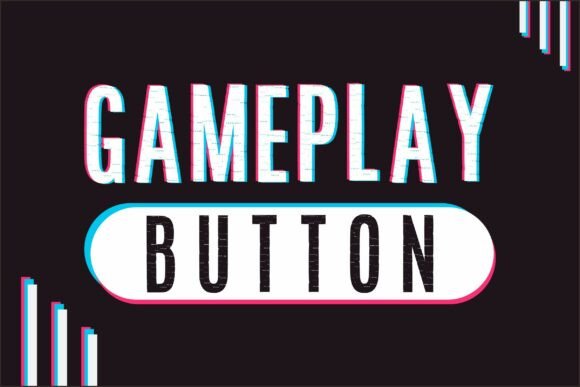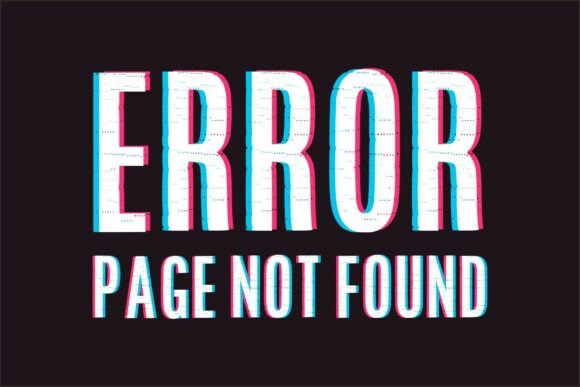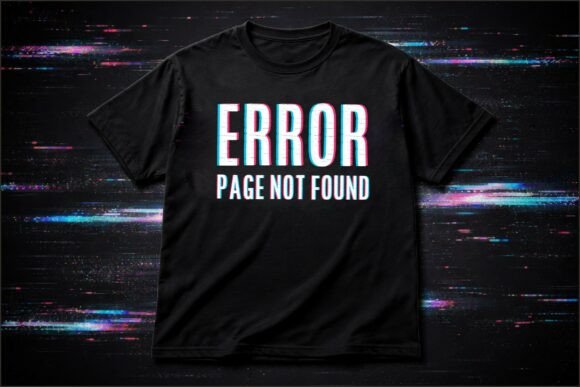
Introduction to Cyberpunk Effect Font
Cyberpunk Effect is a bold futuristic display font inspired by cyberpunk aesthetics, glitch graphics, and digital sci-fi interfaces.
The font features strong geometric letterforms combined with subtle glitch textures and vibrant chromatic shadow effects that create a dynamic 3D cyber style Perfect for futuristic branding, gaming titles, technology posters, sci-fi designs, thumbnails, esports graphics, posters, and digital artwork.
Why Choose Cyberpunk Effect Font?